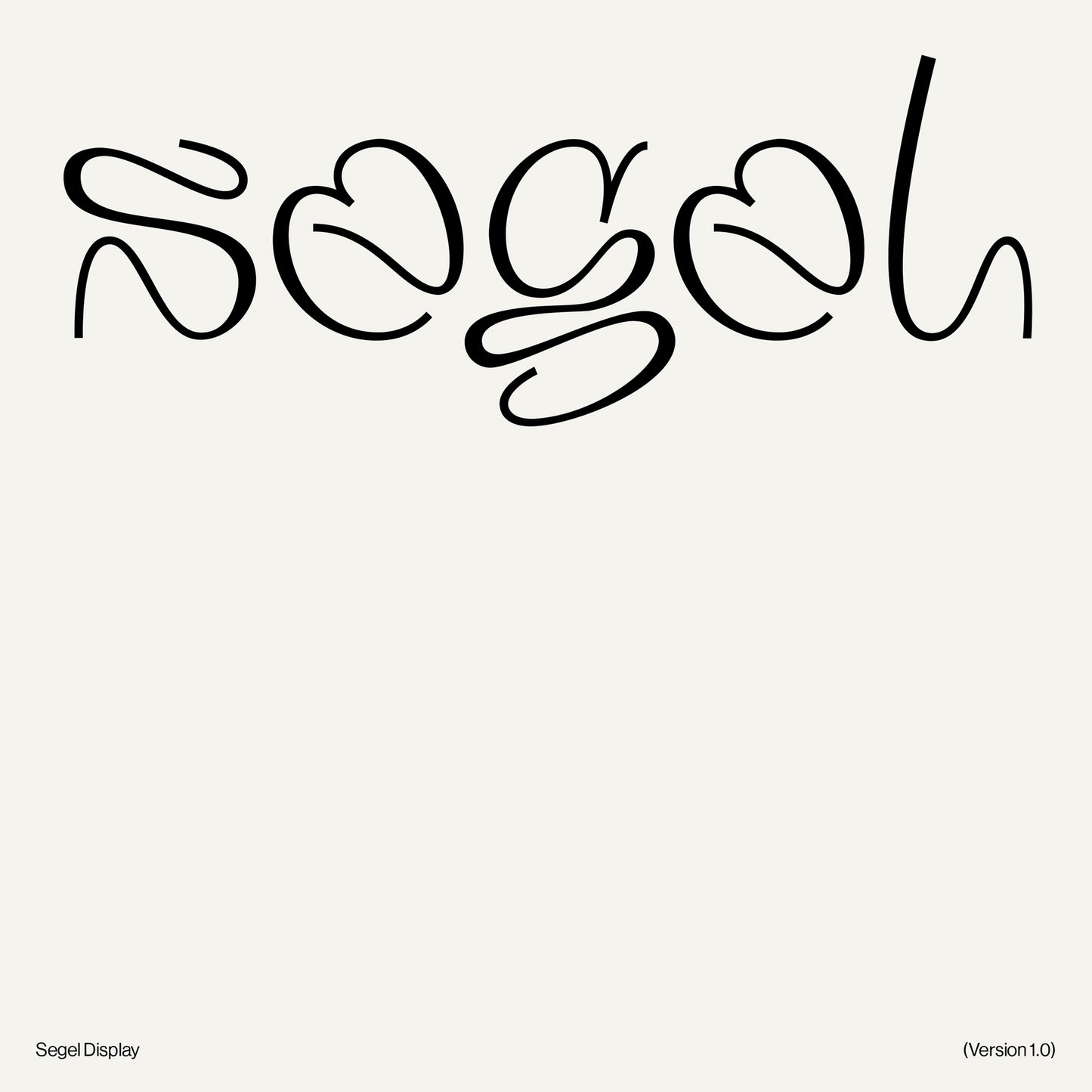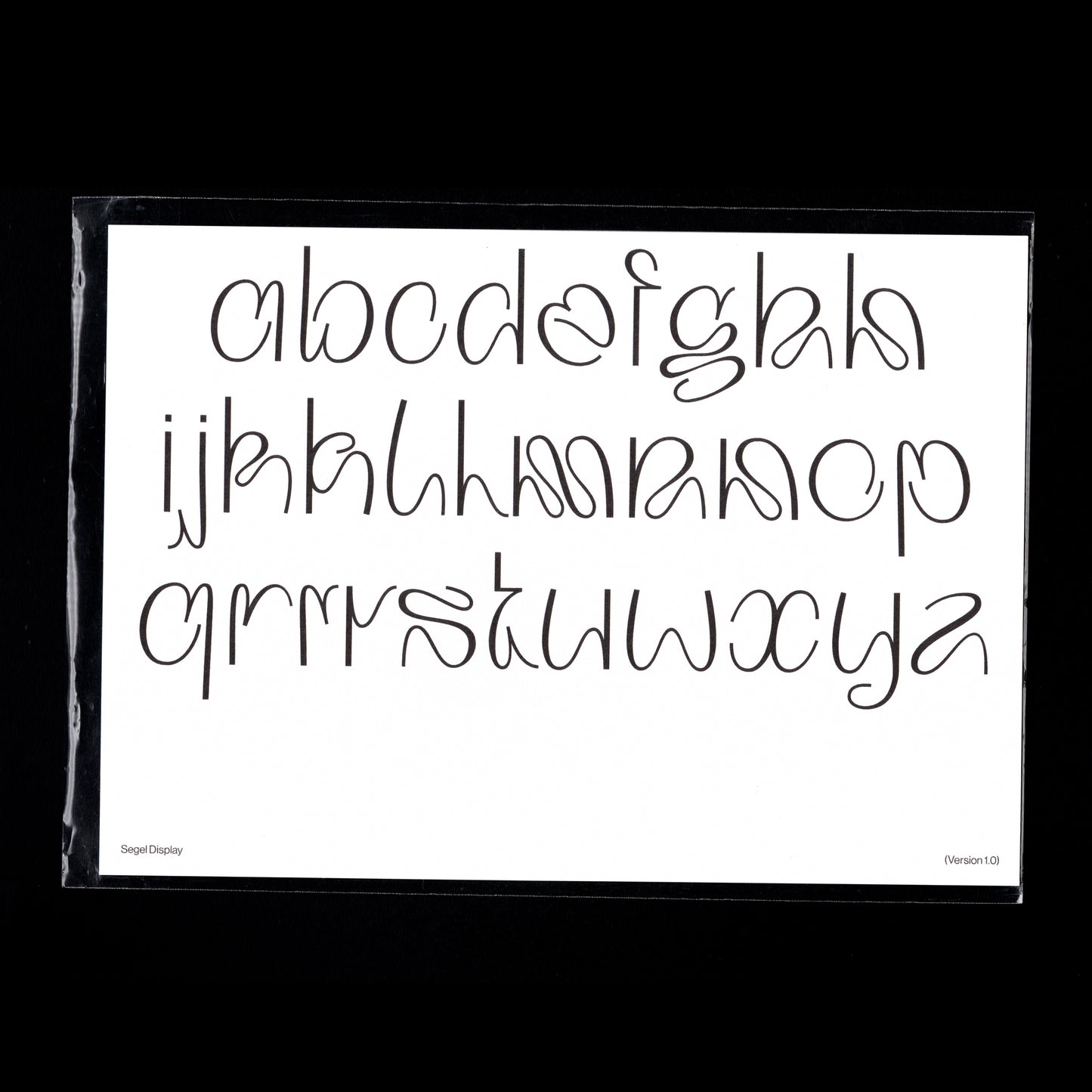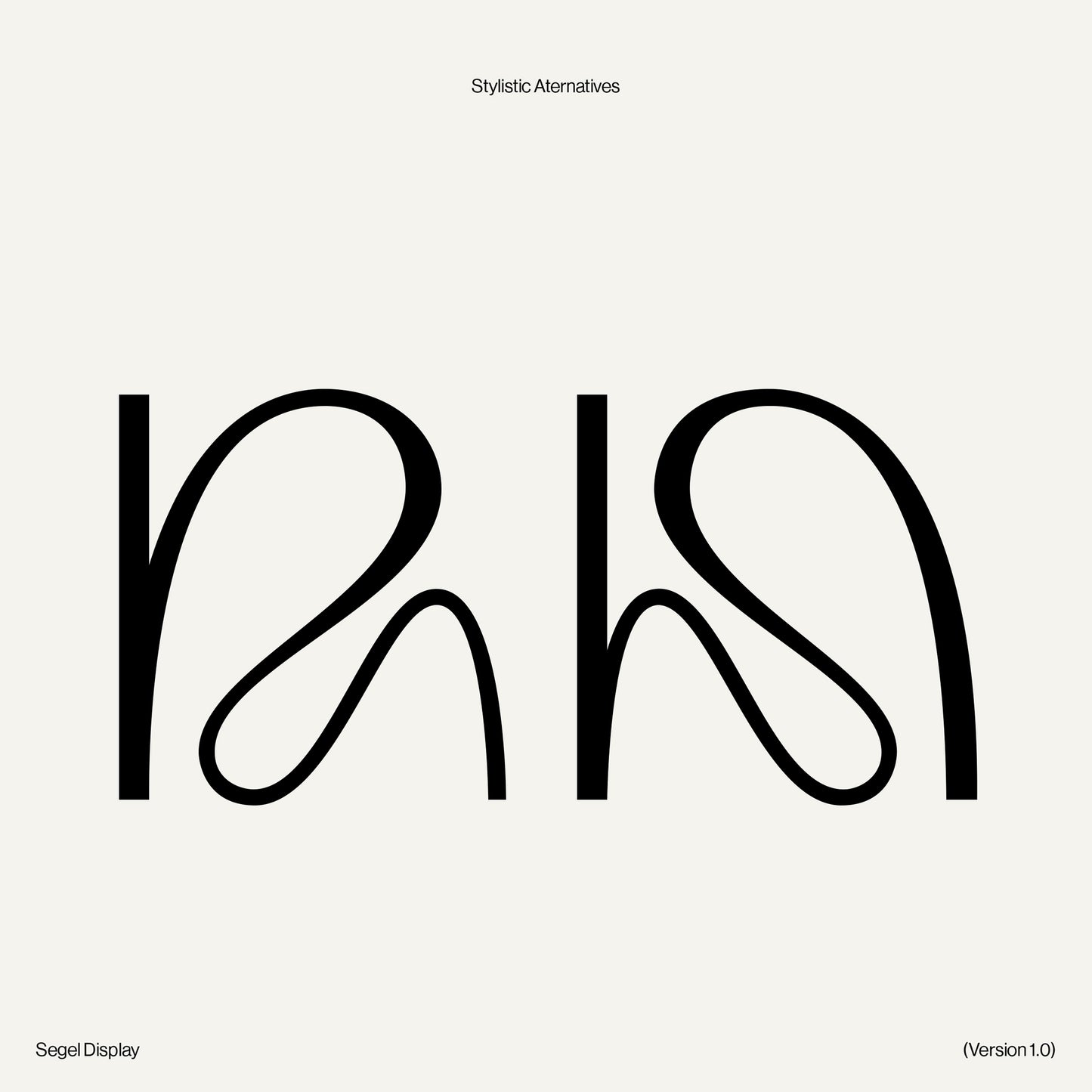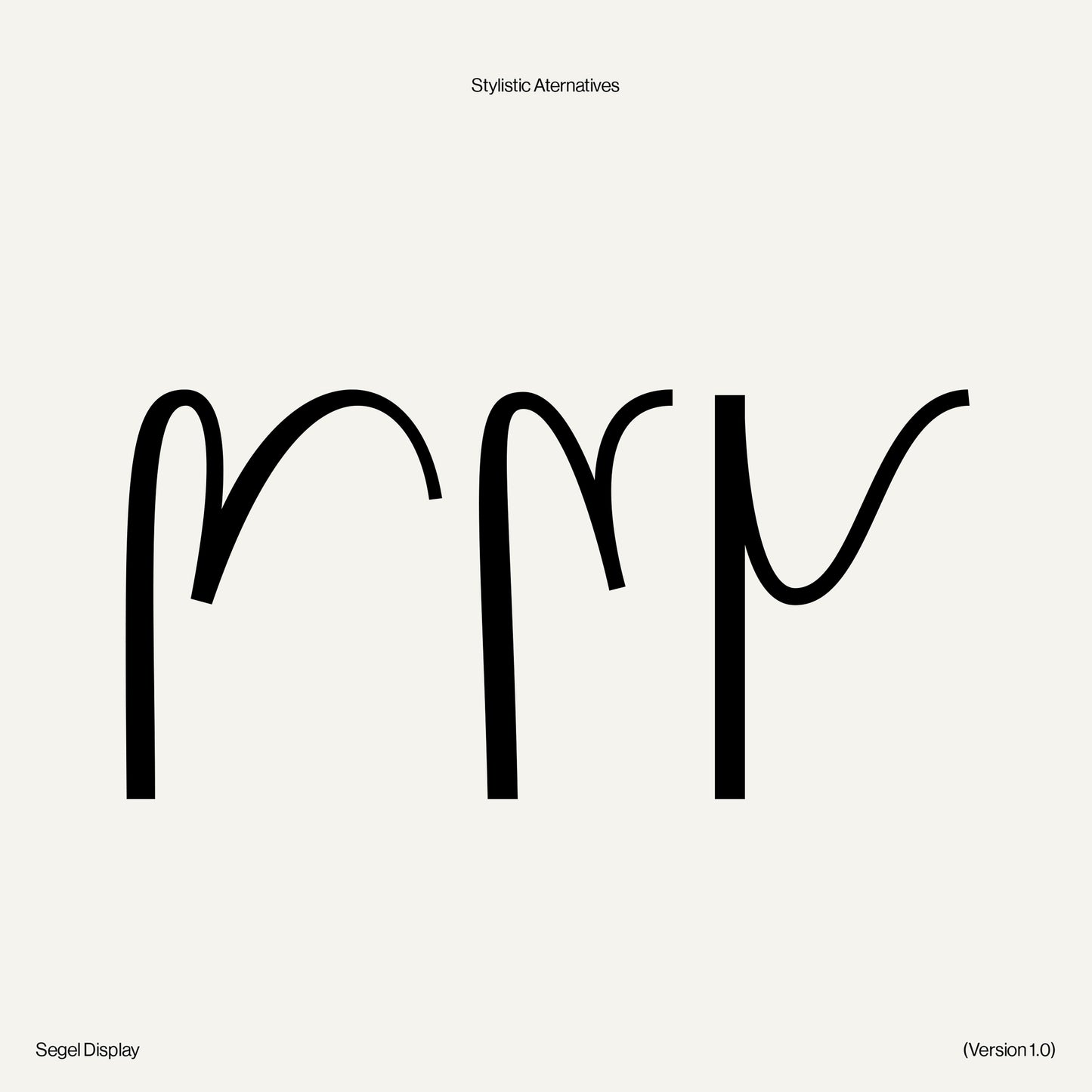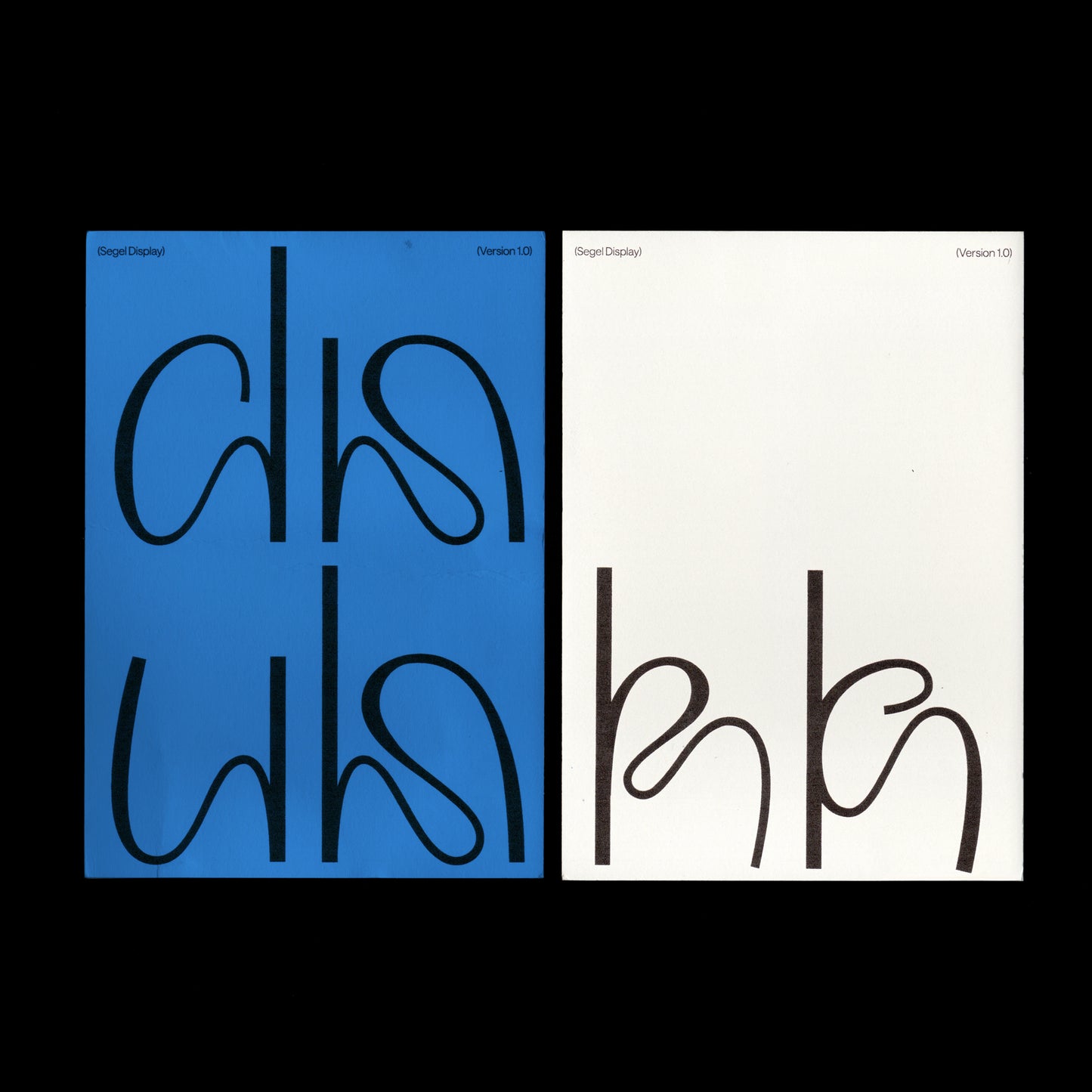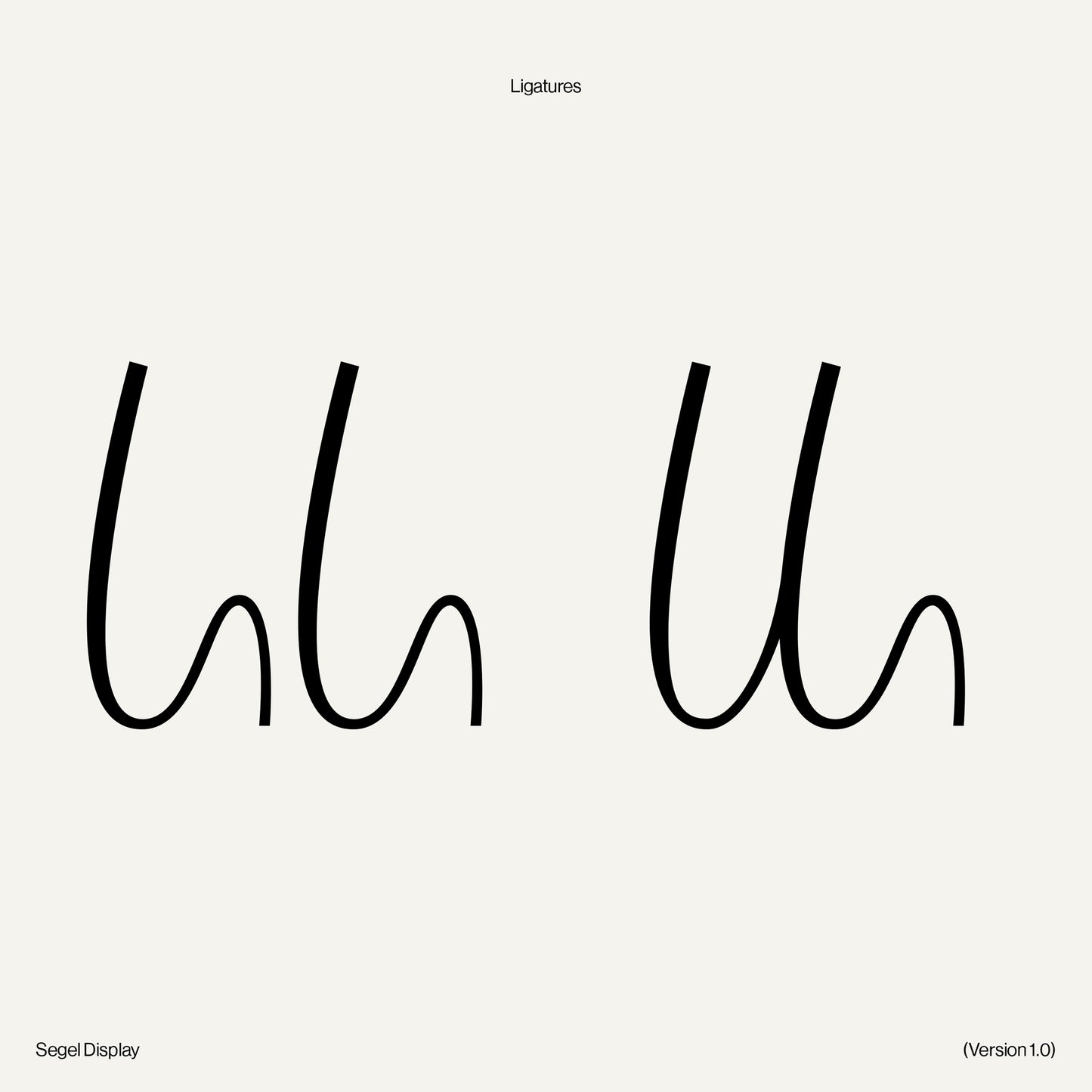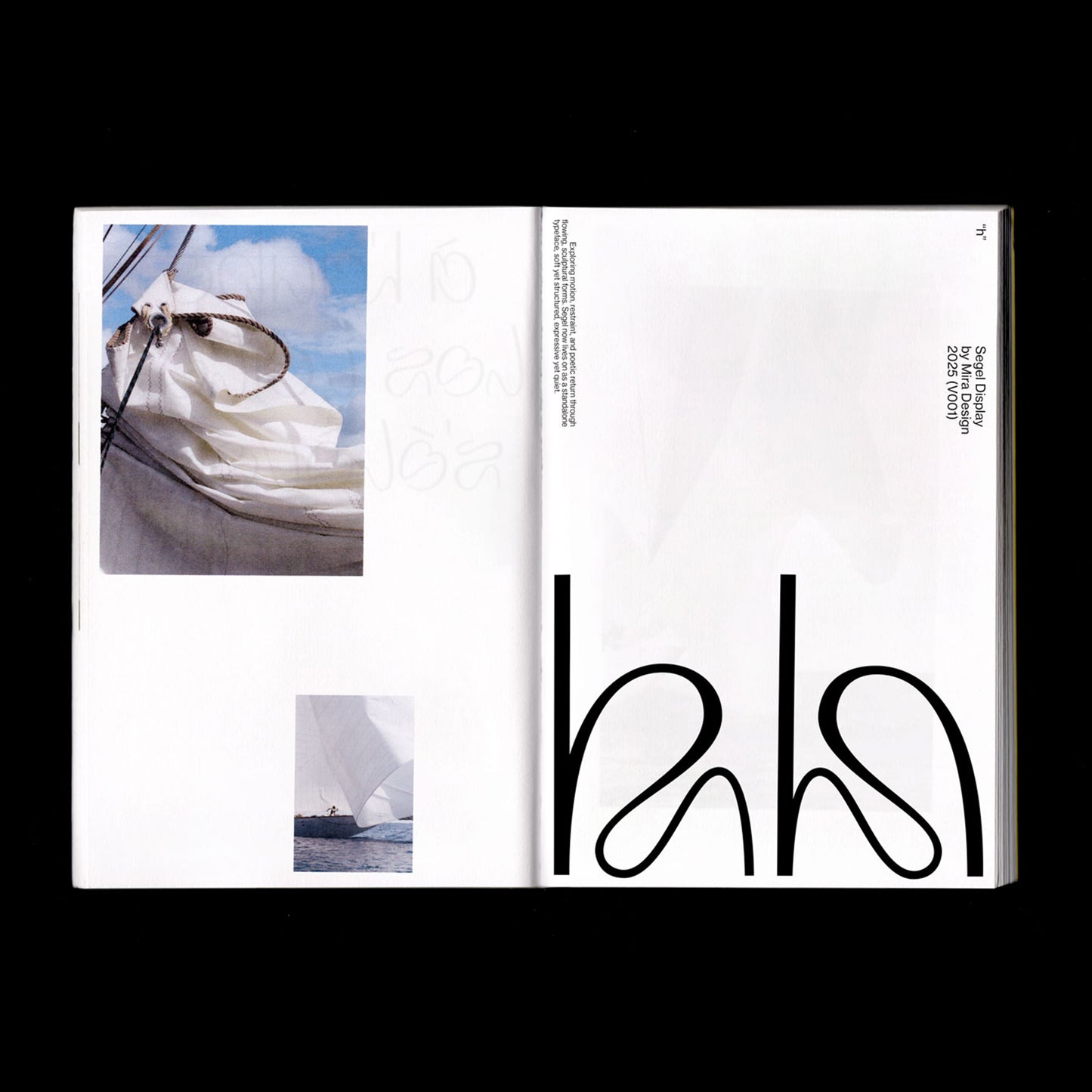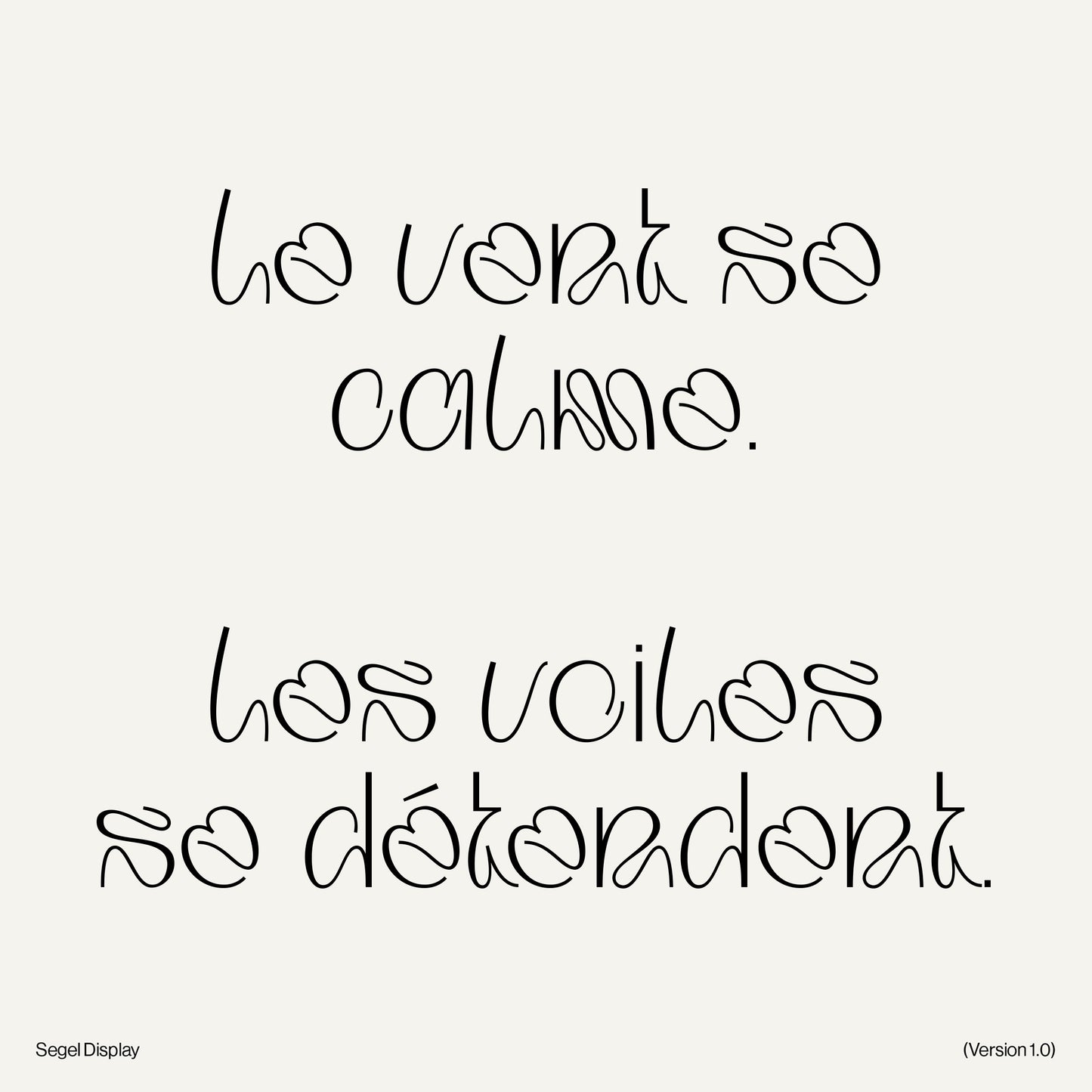
Segel Display
Mira Mayne
Segel Display is an experimental display typeface inspired by the drape and collapse of sails, the release of tension when the wind that once stretched and pulled the fabric softens, and the sails relax.
Its sweeping curves and sculptural counterforms echo this balance of motion and stillness, creating letterforms that feel both delicate and intentional.
Segel grew from explorations of rhythm, flow, and return. The result is a typeface that now stands as a sculptural study in stillness, motion, and the sense of arrival.
— Stylistic alternates
— Ligatures